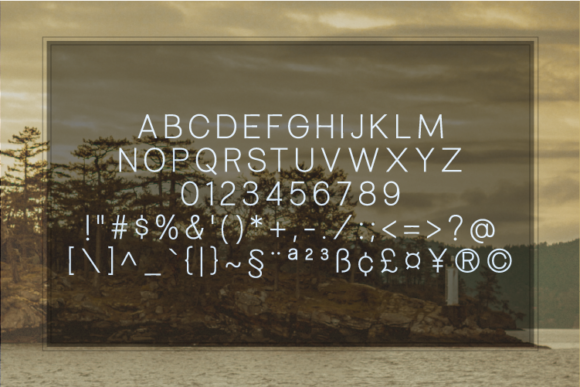
Introduction to Jungland Font
As a designer, you know that the perfect font can elevate your creative project from good to great. There’s something special about finding that one font that speaks to you, that makes your words shine on the page. For me, that font is Jungland Font – a geometric font family that’s as versatile as it is beautiful.
Imagine a font that’s both modern and warm, with a subtle imperfection that gives it a human touch. That’s Jungland Font in a nutshell – perfect for headlines, quotes, and short text where you want to grab attention without overwhelming the reader. With its transparent background and high-quality design, Jungland Font is a valuable resource for any designer looking to add some personality to their work.
Key Features of Jungland Font
- High-quality, professional design perfect for any creative project
- Unique, modern design aesthetic making it a valuable addition to any design library
Honest Review: Jungland Font
As a designer, I’ve had the chance to experiment with various fonts for my creative projects. One of the fonts that caught my attention is the Jungland Font. I was excited to dive in and see what it had to offer.
- ✨ The Jungland Font has a high level of customization, allowing me to easily adjust the size, color, and style to fit my design needs.
- ✨ The transparent background option gives me flexibility to use it on various design elements.
- ⚠️ The font may not be suitable for all design projects, particularly those requiring a more modern or minimalist look.
- ⚠️ Some users may find the font’s style a bit too playful or whimsical for certain design applications.
Overall, I’m impressed with the Jungland Font’s quality and versatility. While it may not be the perfect fit for every design project, it’s definitely a valuable resource to have in my design arsenal.
Conclusion
Getting the Most Out of Jungland Font
To get the most out of Jungland Font, use it in combination with other high-quality design resources, such as images and graphics. Experiment with different font sizes and styles to add visual interest to your design.
Jungland Font is perfect for a variety of design projects, including:
- Brochure design
- Infographic design
Alternatives to Jungland Font
Bebas Neue Font
Bebas Neue is a modern sans-serif font ideal for creative projects that require a clean and elegant design. It’s available for free download and suitable for both print and digital design. Bebas Neue can be used on a transparent background, making it perfect for graphic design and branding.
Compared to Jungland Font, Bebas Neue is more modern and versatile, with a wide range of font weights and styles. It’s a great alternative for designers who want a high-quality font that can be used for various design resources.
Montserrat is a geometric sans-serif font designed for use in urban environments. It’s a great choice for designers who want a font that’s both modern and classic. Montserrat is available for free download and can be used on a transparent background.
Montserrat is similar to Jungland Font in terms of its clean and minimalist design, but it has a more geometric feel. It’s a great alternative for designers who want a high-quality font that’s suitable for a wide range of creative projects.
Avenir Font
Avenir is a geometric sans-serif font that’s perfect for designers who want a font that’s both modern and sophisticated. It’s available for free download and can be used on a transparent background, making it ideal for graphic design and branding.